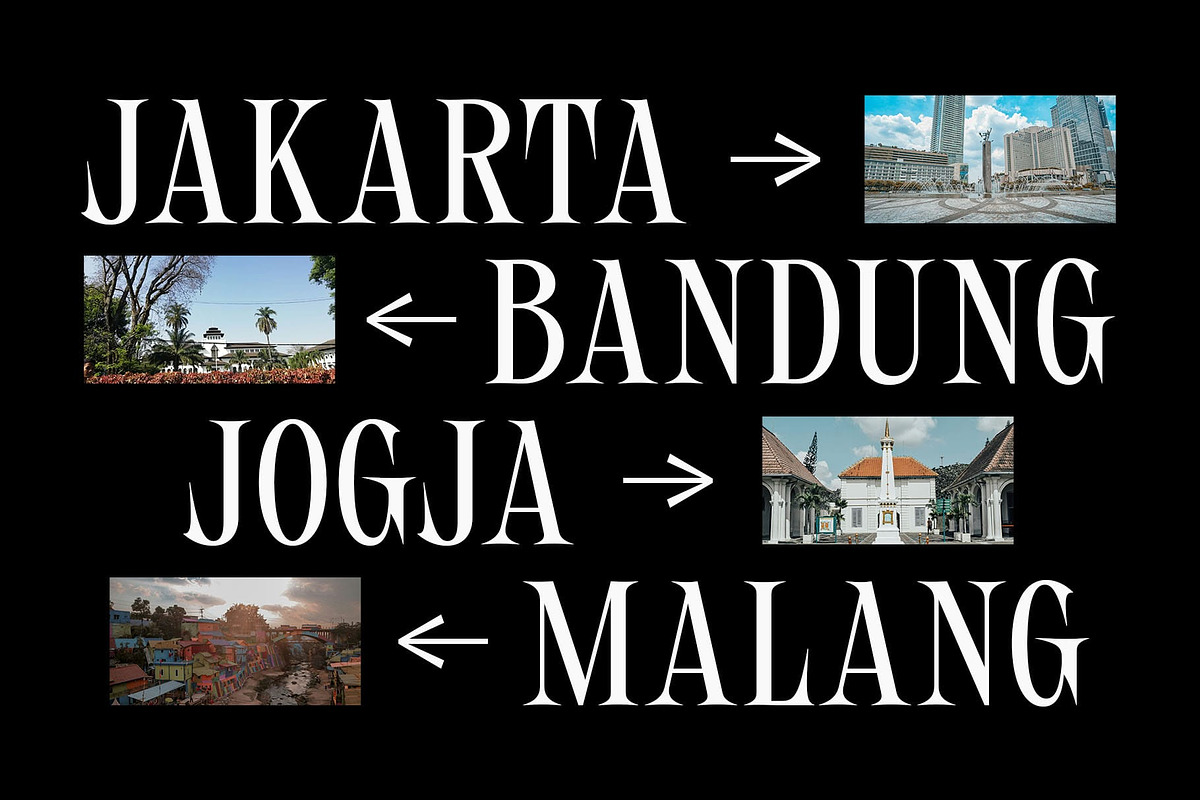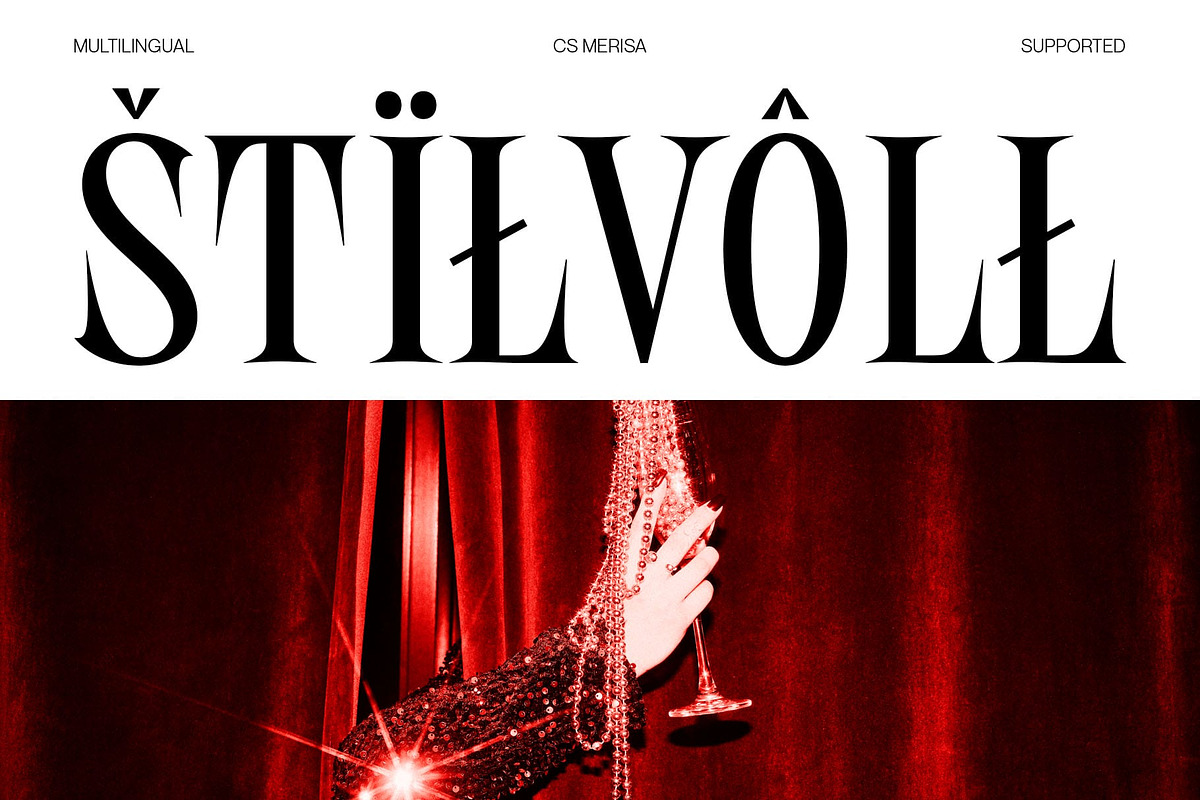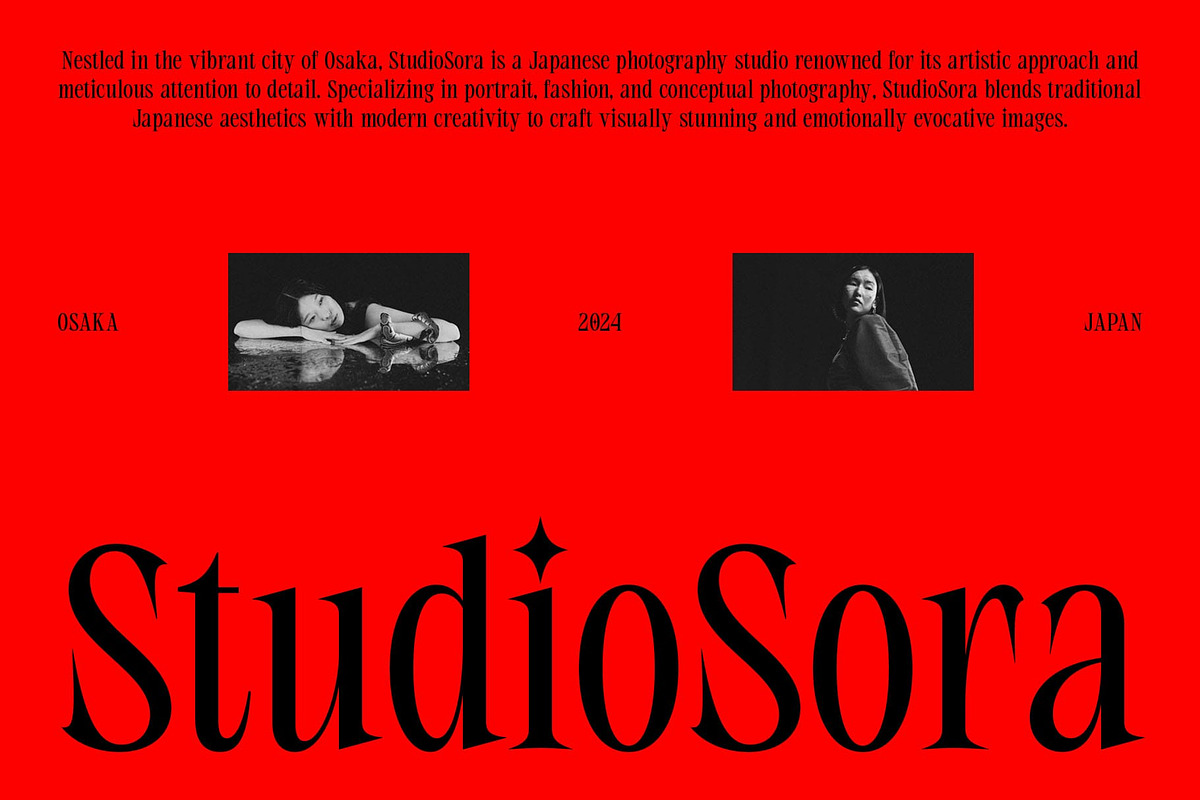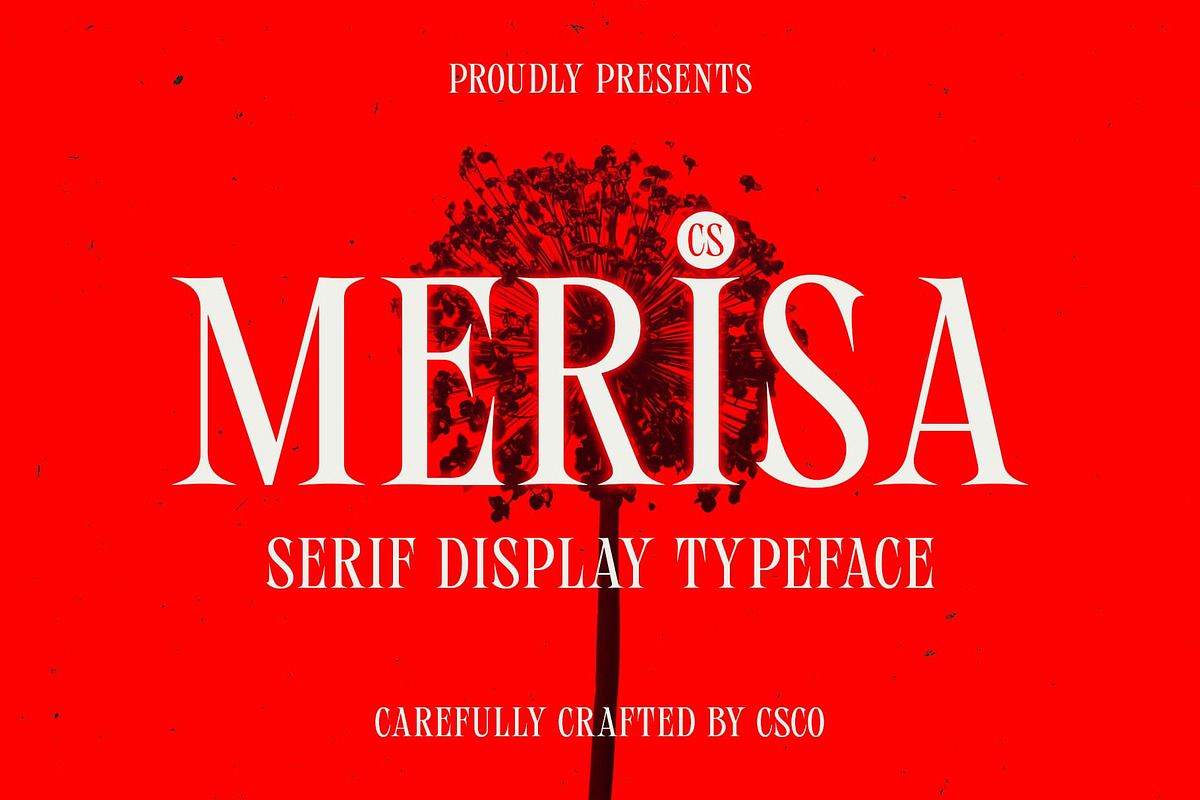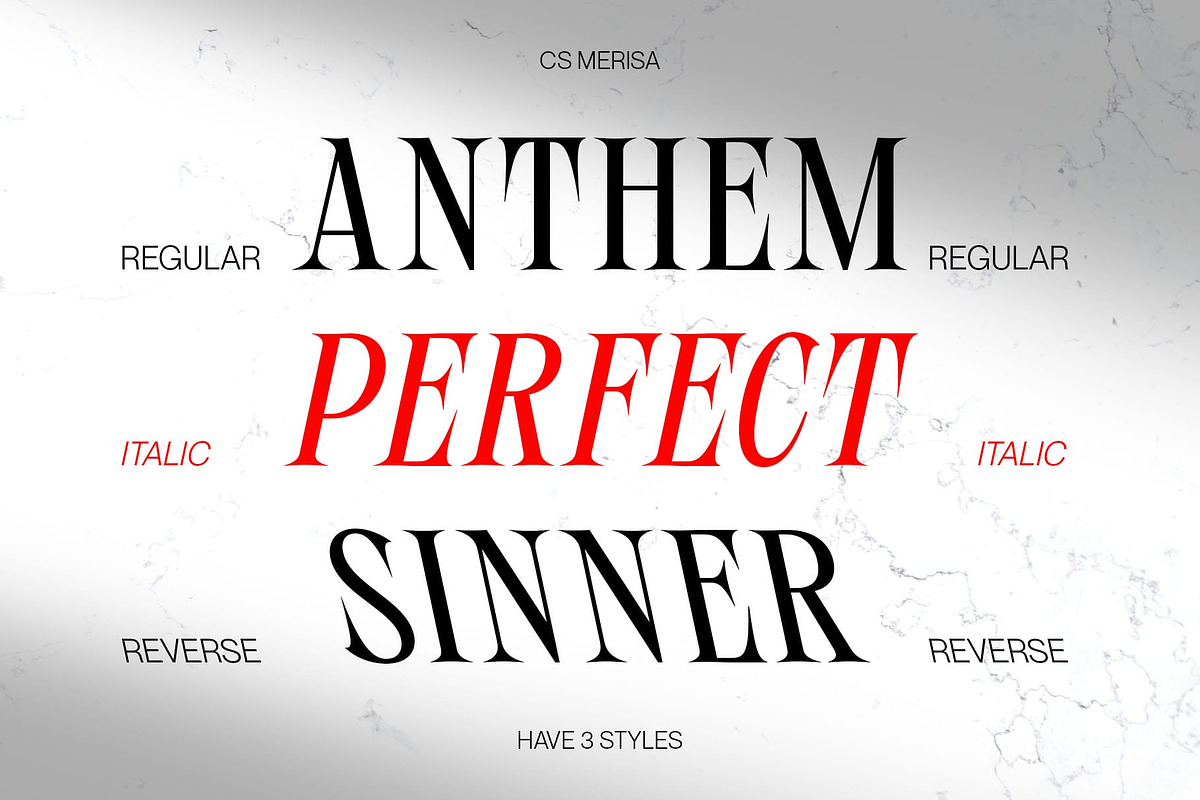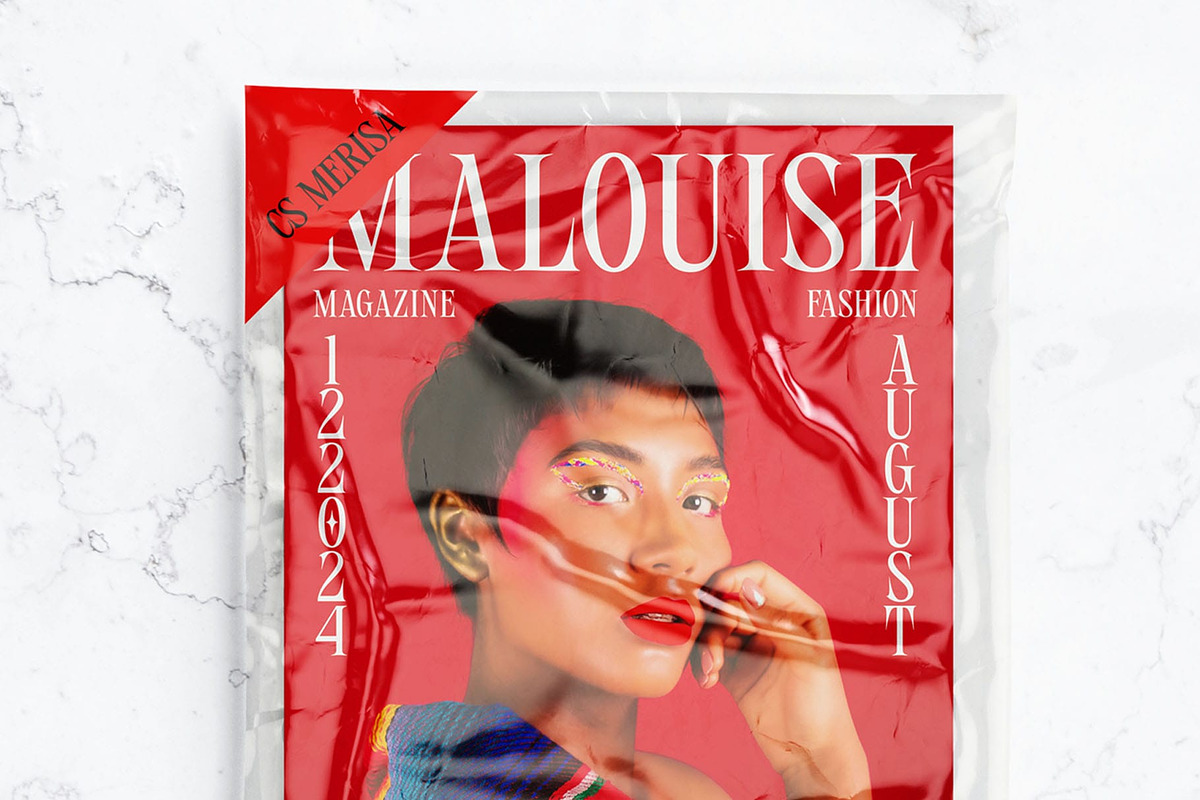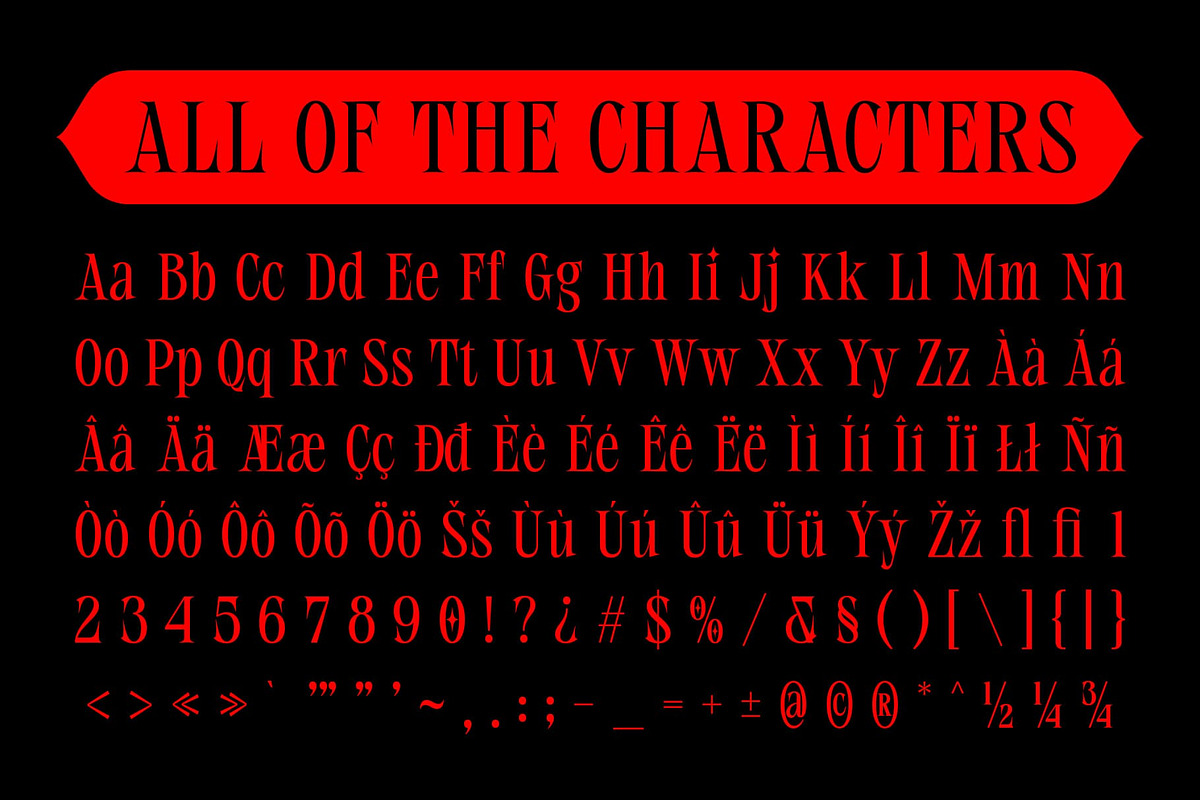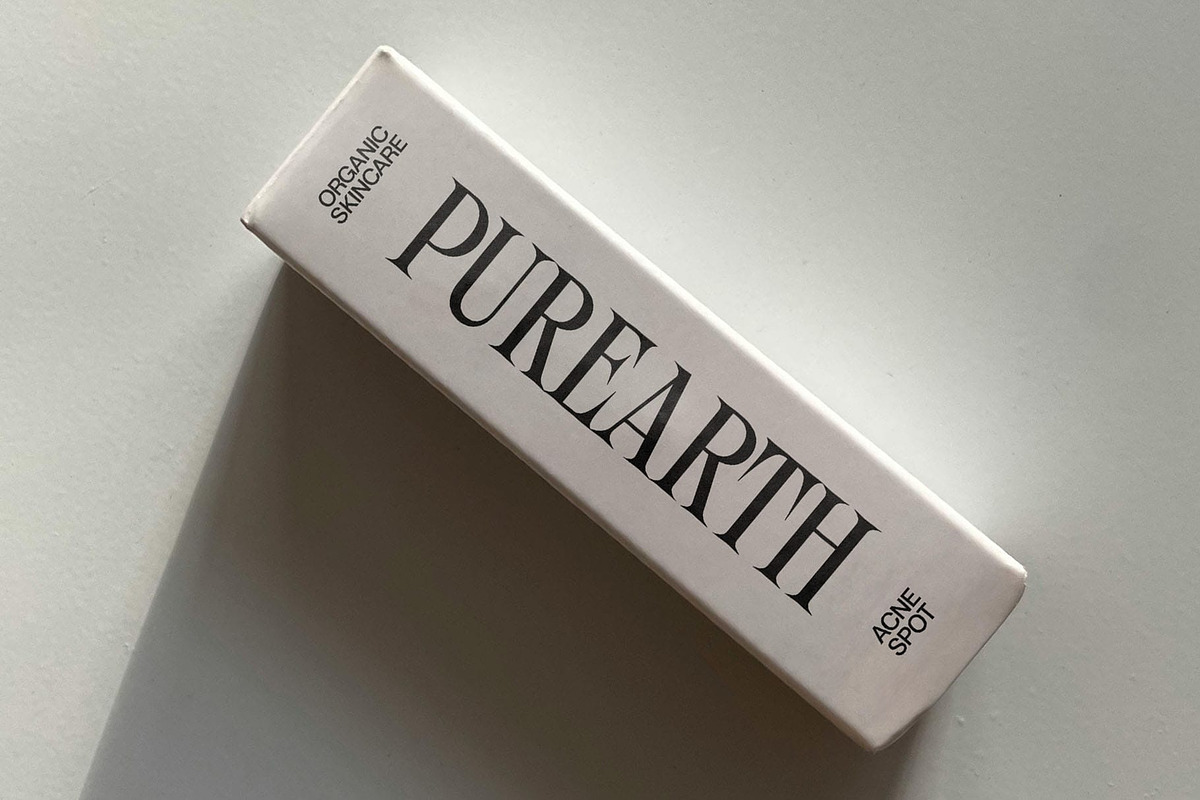
CS Merisa – Classic Font
CS Merisa – Classic Font: A Timeless Elegance with a Modern Touch
Modern Classic Serif with Long Serifs CS Merisa is a refined modern classic serif font that embodies sophistication and grace. With its elongated serifs and well-balanced proportions, it exudes a timeless elegance, making it a perfect choice for high-end and stylish designs. Whether used in branding, editorials, or luxury packaging, this typeface adds a touch of prestige and class.
Slim Letterforms for a Luxurious Aesthetic Designed with sleek and delicate strokes, CS Merisa brings a sense of luxury and exclusivity. Its graceful curves and slender structure create a polished and upscale appearance, enhancing the overall elegance of any composition. The subtle contrast between thick and thin strokes adds visual interest while maintaining a refined aesthetic, making it ideal for magazine covers, invitations, and premium advertising.
Perfect for Branding and Editorial Excellence CS Merisa’s sophisticated design ensures versatility across various applications. Its well-crafted details and stylish proportions make it an excellent choice for branding projects that require a distinguished and memorable identity. Whether for fashion labels, beauty brands, or editorial layouts, this font delivers a professional and artistic impression, helping designs stand out with confidence and refinement.
- CS Merisa Regular
- CS Merisa Italic
- CS Merisa Reverse Italic